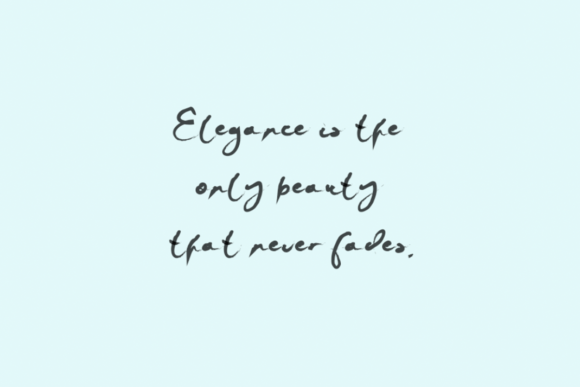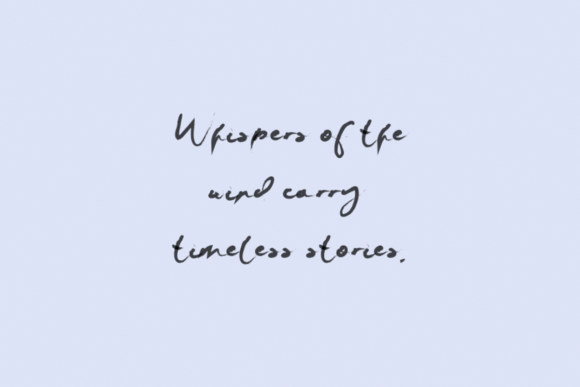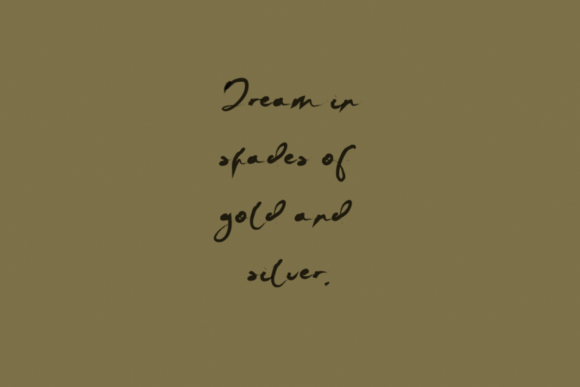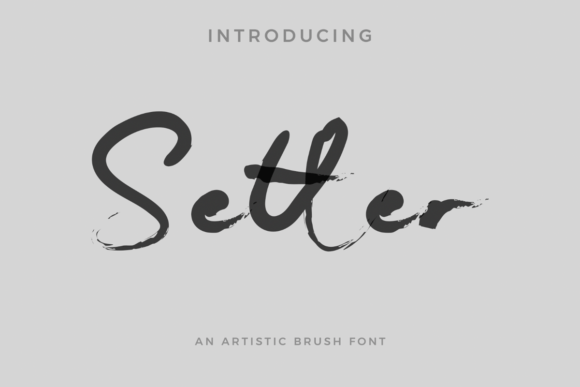
Introduction to Setter Font
Introducing Setter, a masterstroke of artistry skillfully crafted through the delicate intricacies of hand-lettering and brushwork.
Each character emanates a robust personality, raising the bar in imaginative expression This distinctive font brilliantly harmonizes the untamed richness of creativity with exactitude, setting it in its own league.